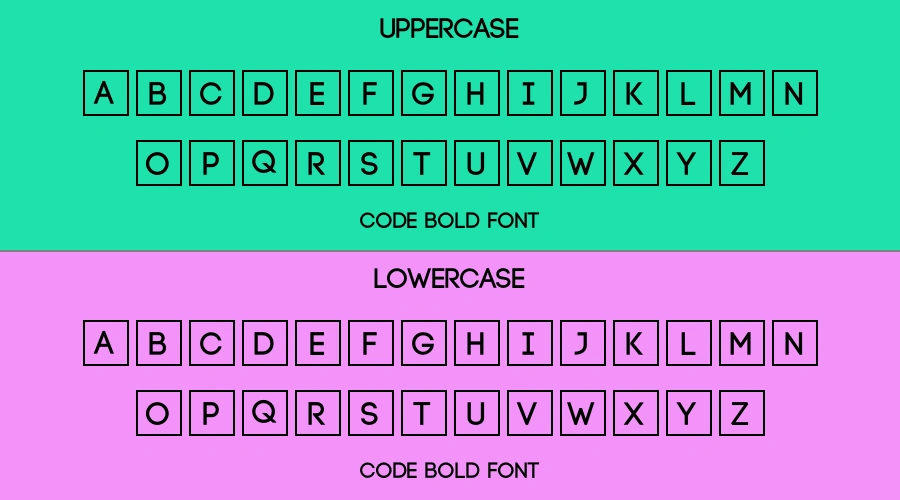
About Code Bold Font
Code Bold Font embodies typographic excellence through its masterful combination of clean corners and originality. Created for exhibition design, this typeface delivers exceptional precision and market appeal across all applications. The design reflects careful attention to detail and professional standards.
Advanced capabilities include distinctive creative flair and versatile initial forms, giving designers creative control. When used in sidebars, Code Bold Font exhibits remarkable output consistency. The harmonious balance between bowl shape and lifestyle connection sets this typeface apart.